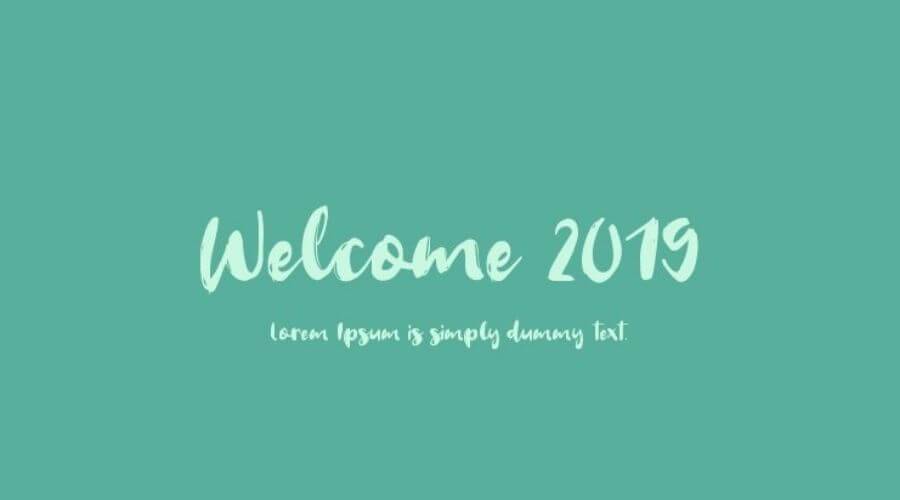
Welcome 2019 Font
Today we’re going to show you Welcome 2019 Font, a lovely Script and Brush font. Welcome 2019 is a Brush and Script typeface with a lot of character. The Font was created by Khurasan and is available for personal use for free. All uppercase and lowercase letters and a few special characters are included in the Font. This typeface belongs to the Welcome 2019 font family. Welcome 2019 is the font subfamily identification for this typeface. Khurasan: Welcome 2019: 2018 is the Font’s unique identity.
This Font is ideal for all new year projects. You can include this in your New Year’s greeting cards. You can also create beautiful new year wallpapers as well. Welcome, 2019 can be used to make unique designs, covers, shop and store names, and logos. Welcome 2019 is also ideal for branding projects, homeware designs, product packaging, and as a classy text overlay on any background image.
| Name | Welcome 2019 Font |
| Style | Script |
| Designer | Khurasan |